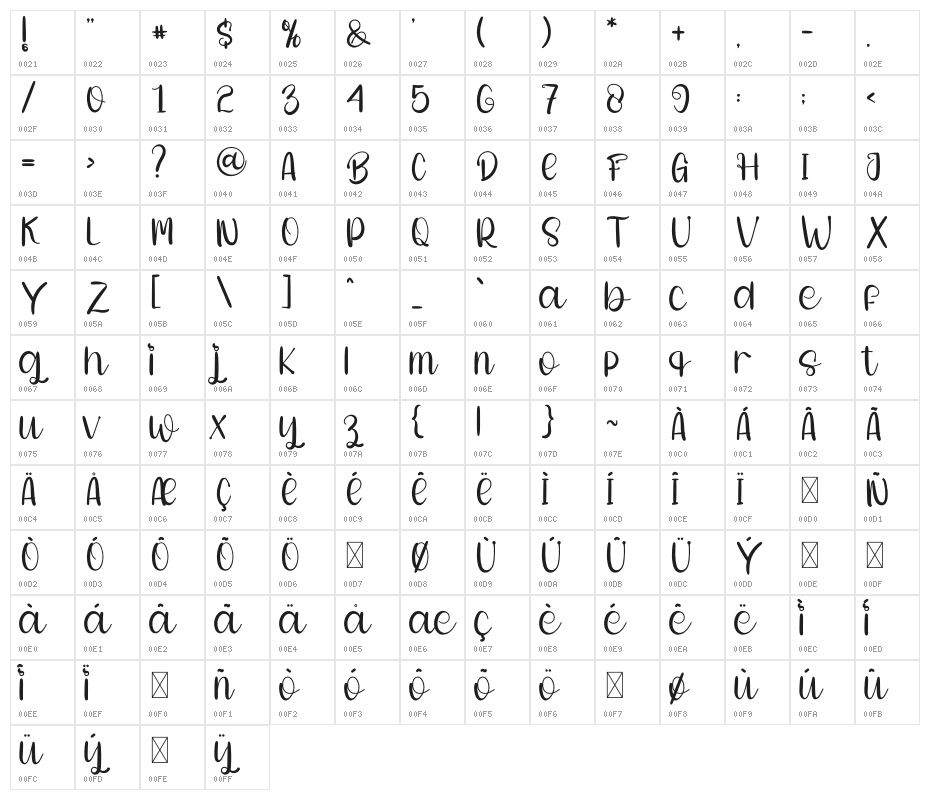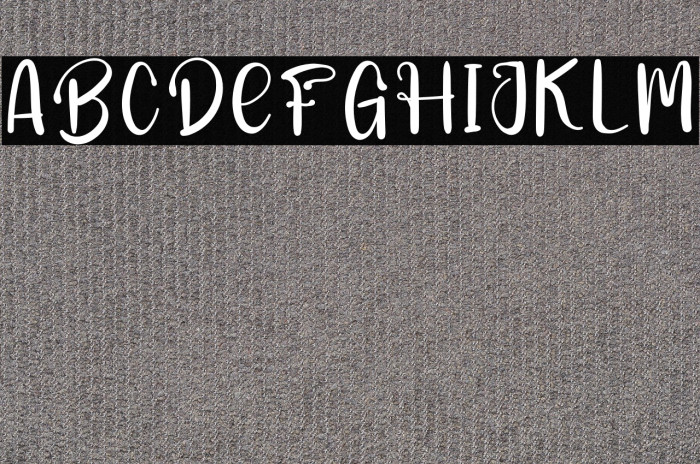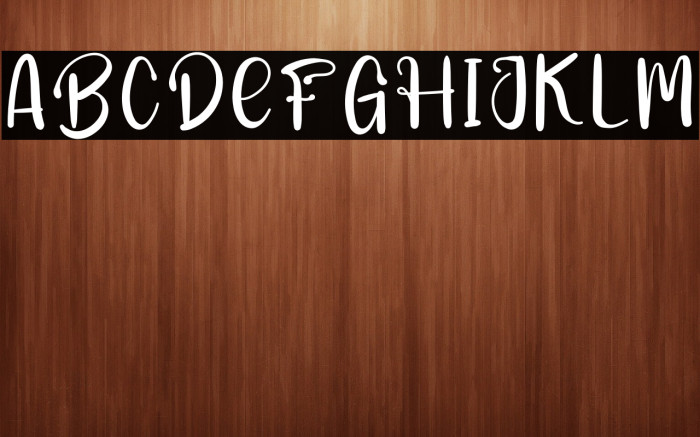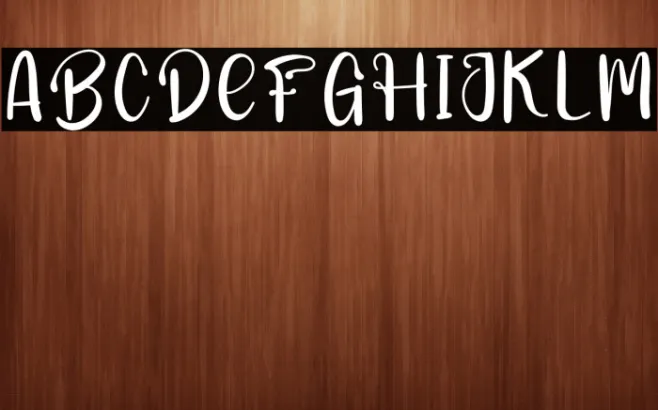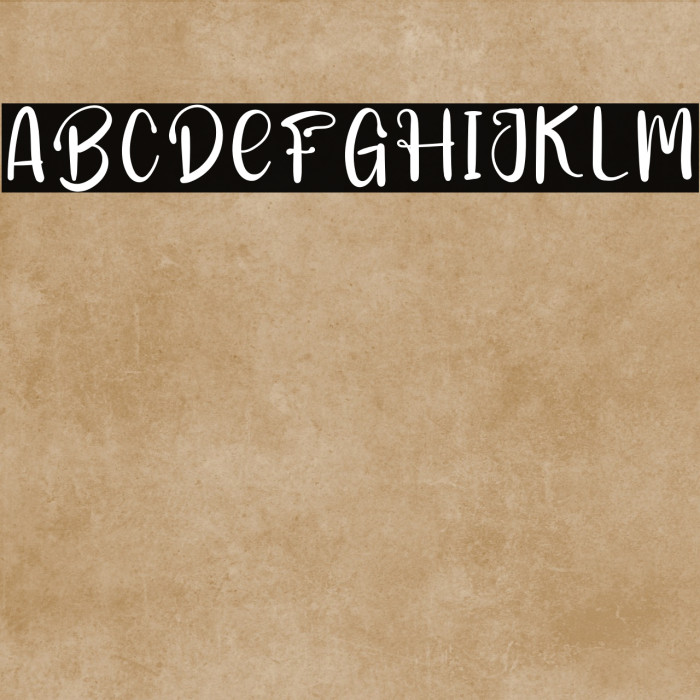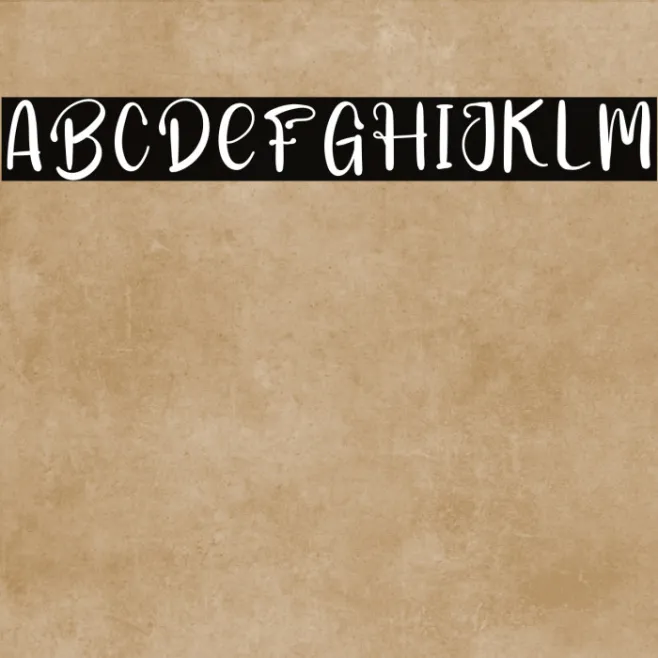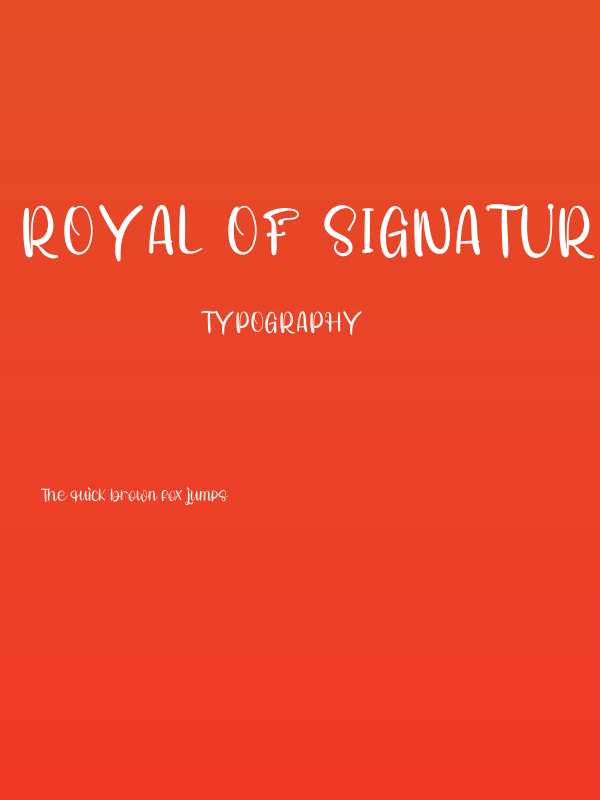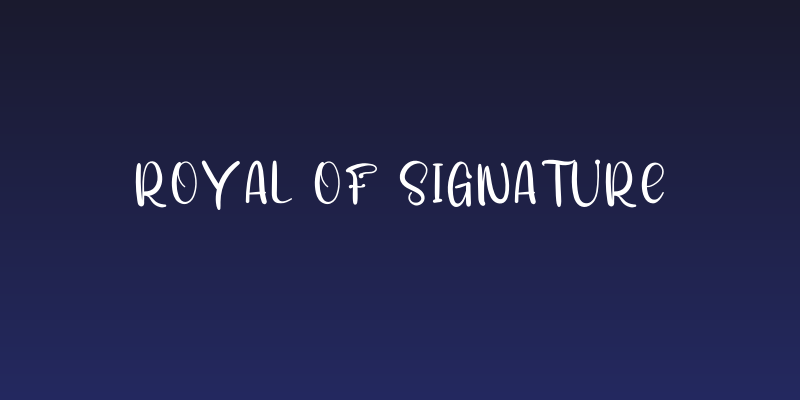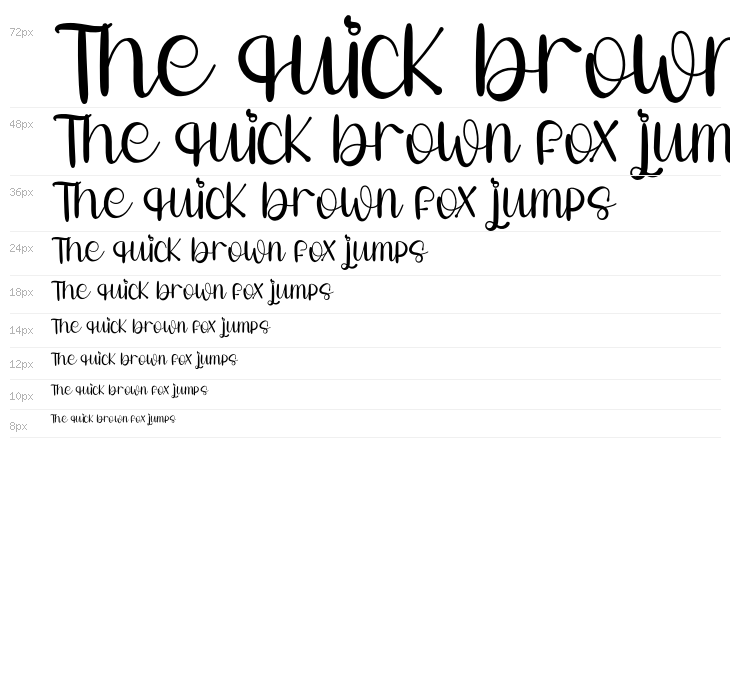
Royal Of Signature Font
This font features a playful and elegant script style, characterized by its flowing, cursive letterforms. The uppercase letters are bold and expressive, with a slight slant that adds a dynamic feel. The lowercase letters maintain a consistent flow, with unique loops and swirls that enhance its decorative appeal. Numbers and special characters are designed to match the whimsical nature of the alphabet, making it suitable for creative and artistic projects. The overall design is cohesive, with a balance between thick and thin strokes that provide a moderate contrast, adding to its readability while maintaining its artistic flair.
A playful and elegant script font with flowing, cursive letterforms and moderate contrast.
- Font: Royal Of Signature
- Proposed Projects: Ideal for wedding invitations, greeting cards, branding, and logo design.
- Category: Script
- Use Case: Logos, Headlines, Invitations